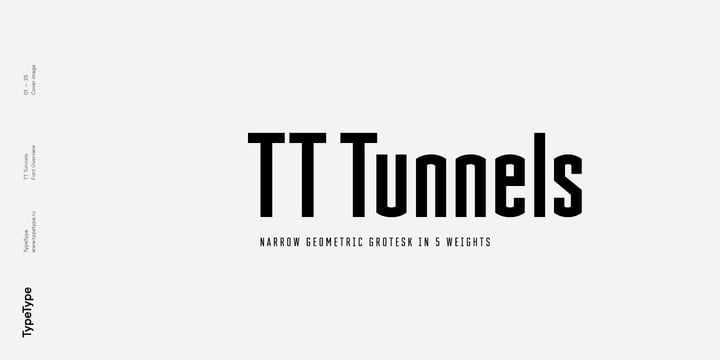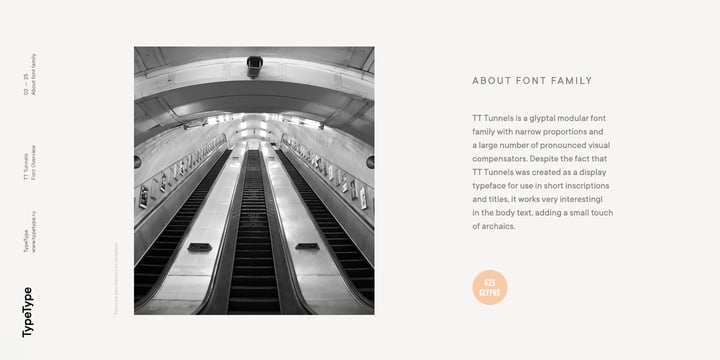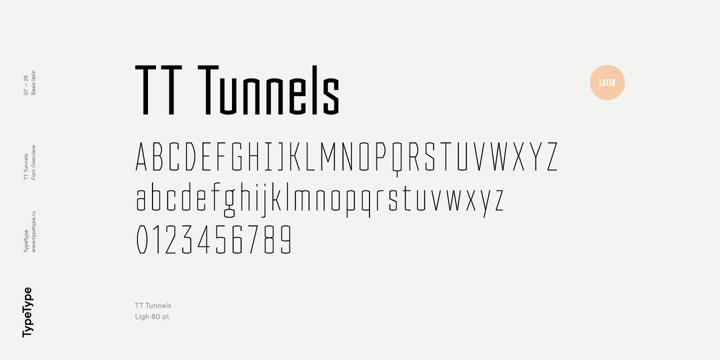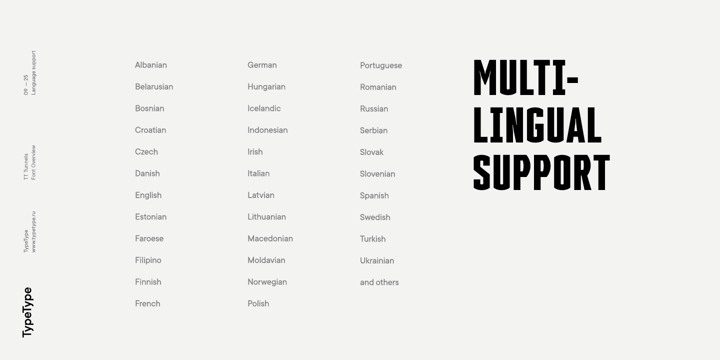
About TT Tunnels Font Family
TT Tunnels is a modular font family with narrow proportions and a large number of pronounced visual compensators. In the basic version of the typeface, all glyphs have simple chopped shapes, created according to the usual geometric principles. In the alternative version of TT Tunnels, which becomes available when you turn on OpenType feature stylistic alternates or stylistic set 1, the typeface comes to life and turns into a stylized ductal gothic grotesque, in which the design of glyph forms is created based on the pen movements. Despite the fact that TT Tunnels was created as a display typeface for use in short inscriptions and titles, it works very interestingly in the body text, adding a small touch of archaics. This is especially evident in the Bold and Black faces, when the rhythm and thickness of the strokes create a dense set, covering the paper with a solid, dense pattern. The density and style of such a set conceptually refers us to the old Gothic texture and the Old Slavonic script. In addition to a larger number of alternates for lowercase letters, the typeface features an alternate for number 2, an alternate slashed zero, many ligatures, and other useful OpenType features (ordn, frac, sinf, sups, numr, dnom, case, tnum, onum, pnum, liga, salt, ss01, zero). The TT Tunnels includes five faces: Thin, Light, Regular, Bold, Black.